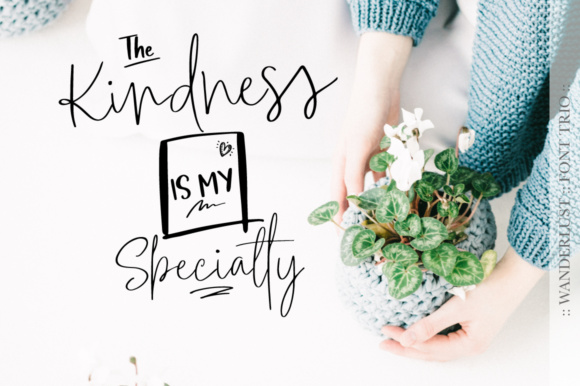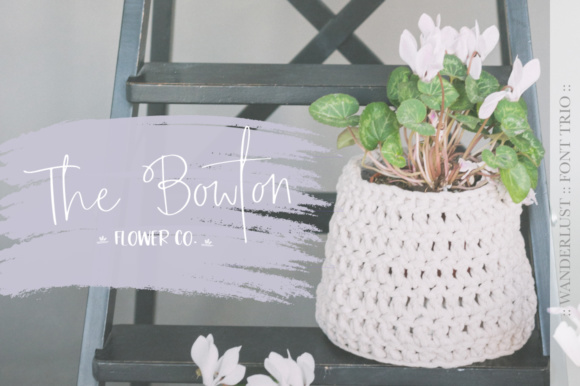
Wanderlust Trio Font
db-ku.com - Script & Handwritten -- The Wanderlust Script Font is a fashionable font, perfectly suitable for creating high-impact headlines.